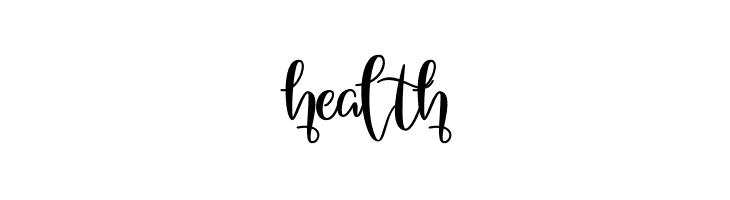
A bold, playful handwritten font with thick strokes and a casual style.
A cursive, handwritten-style font with elegant loops and swashes.
A decorative cursive font with elegant loops and swashes.
A whimsical script font with elegant swashes and flowing connections.
A bold, expressive handwritten font with elegant swashes and flourishes.
An elegant script font with intricate swashes and flowing strokes.
A cursive, calligraphy-inspired font with elegant loops and swashes.
An elegant, flowing script font with intricate loops and swashes.